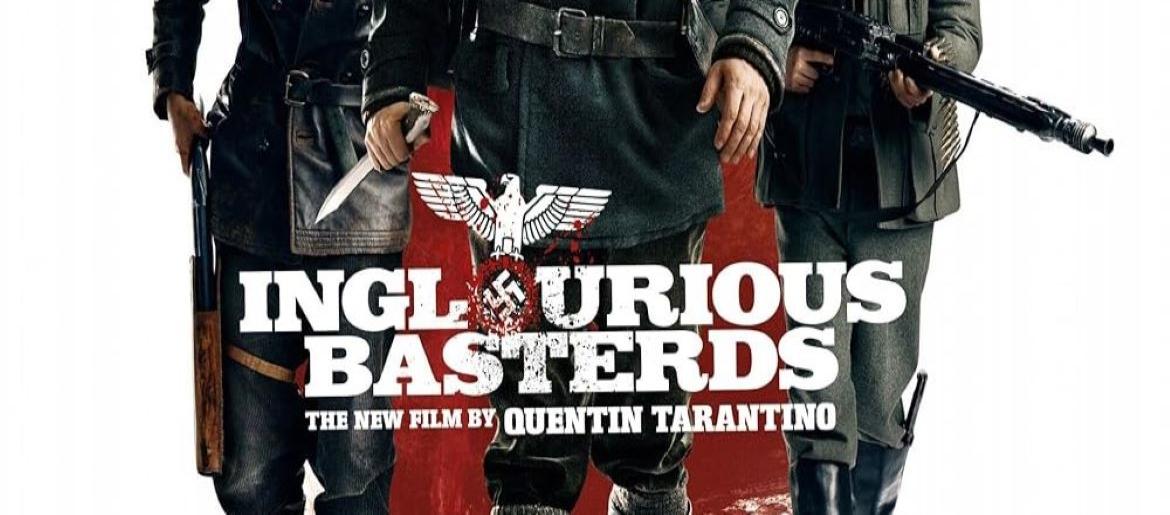
Inglourious Basterds Font
The Inglourious Basterds Font embodies the film’s raw defiance and stylized aggression through its bold, distressed type design. With strong serifs and rugged contours, the typography perfectly channels Quentin Tarantino’s chaotic storytelling and wartime brutality. It’s a design language that mirrors rebellion, danger, and power—all captured through the strength of each letterform.
This type of font, inspired by classic gothic and vintage serif structures, is perfect for poster art, editorial layouts, or branding projects that need to project grit and authority. Its handcrafted imperfections give it a cinematic realism, echoing the intense tone of the film.
About Inglourious Basterds
Released in 2009, Inglourious Basterds is a World War II action-drama written and directed by Quentin Tarantino. Starring Brad Pitt, Christoph Waltz, and Mélanie Laurent, the film blends revenge, dark humor, and historical fiction, earning critical acclaim for its bold narrative and unforgettable performances.